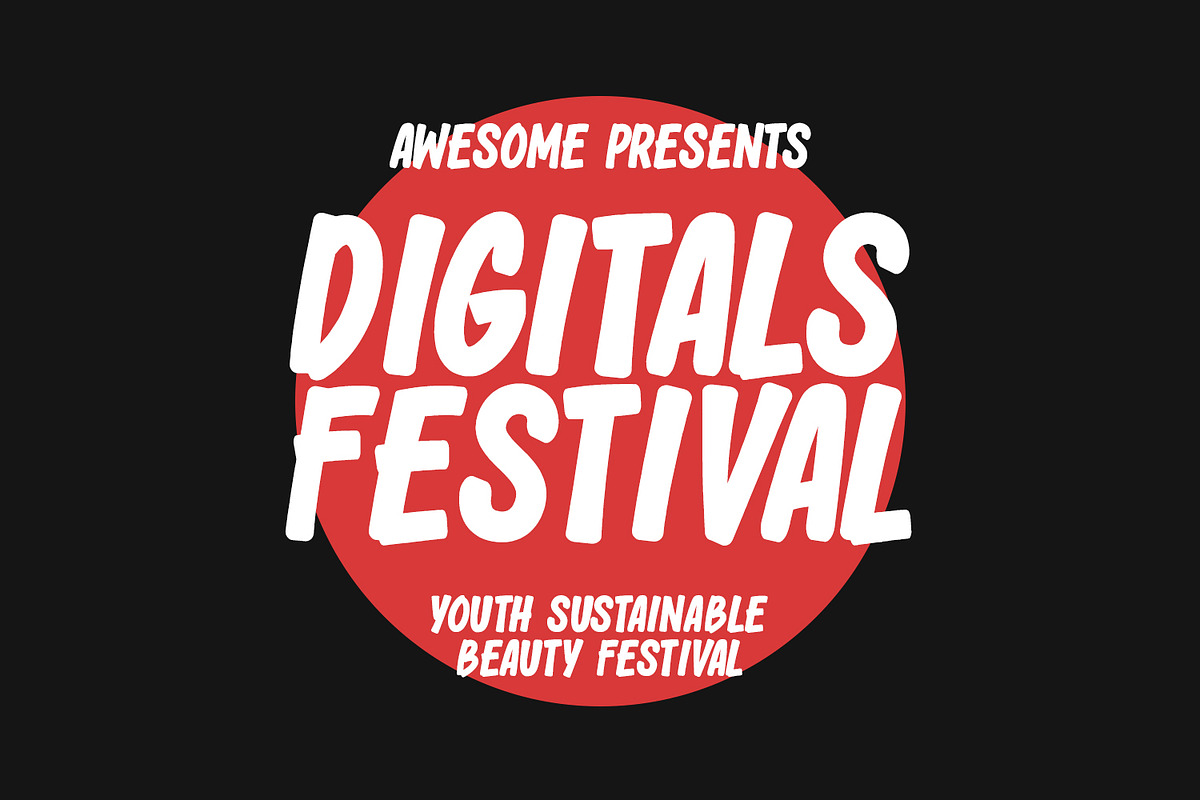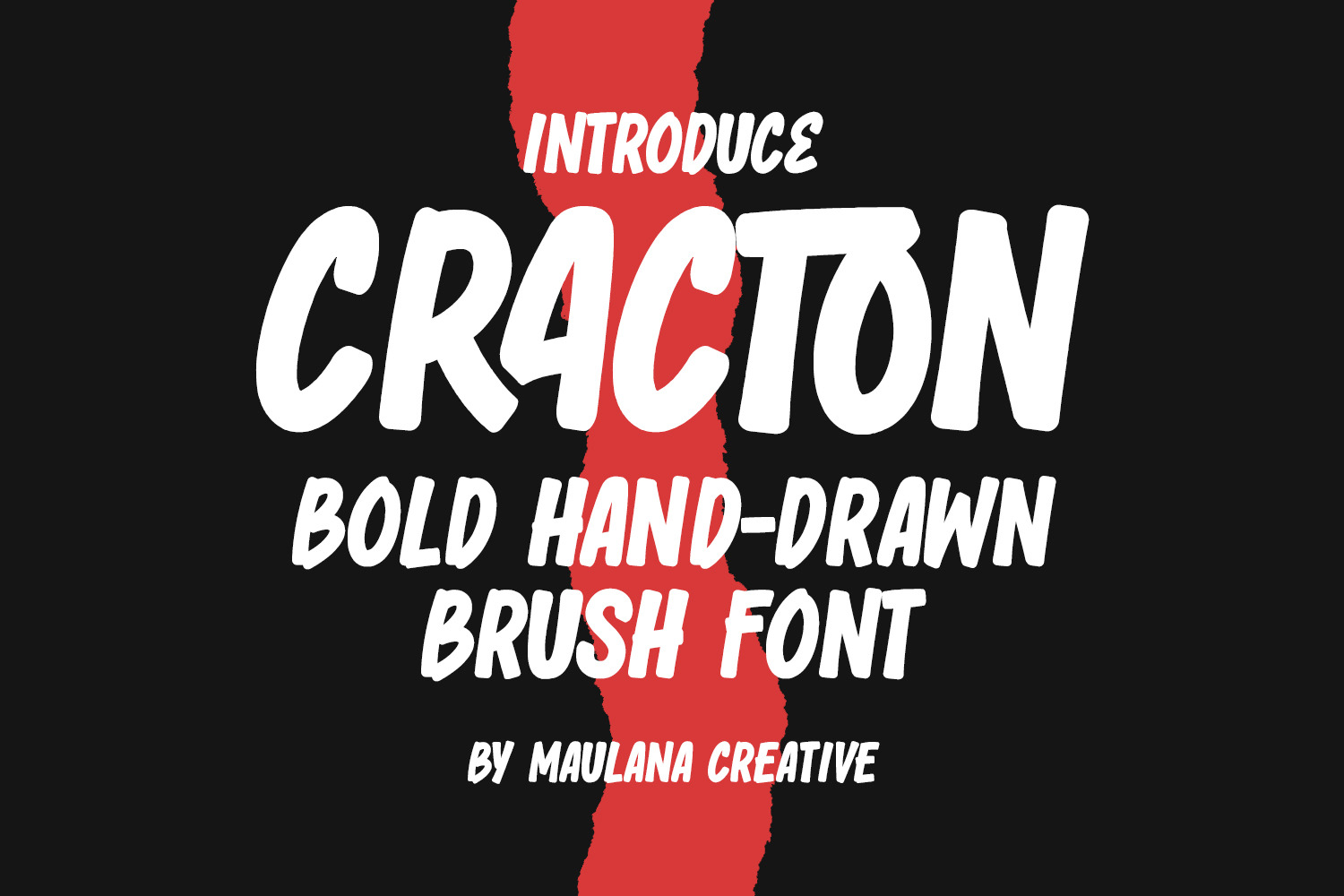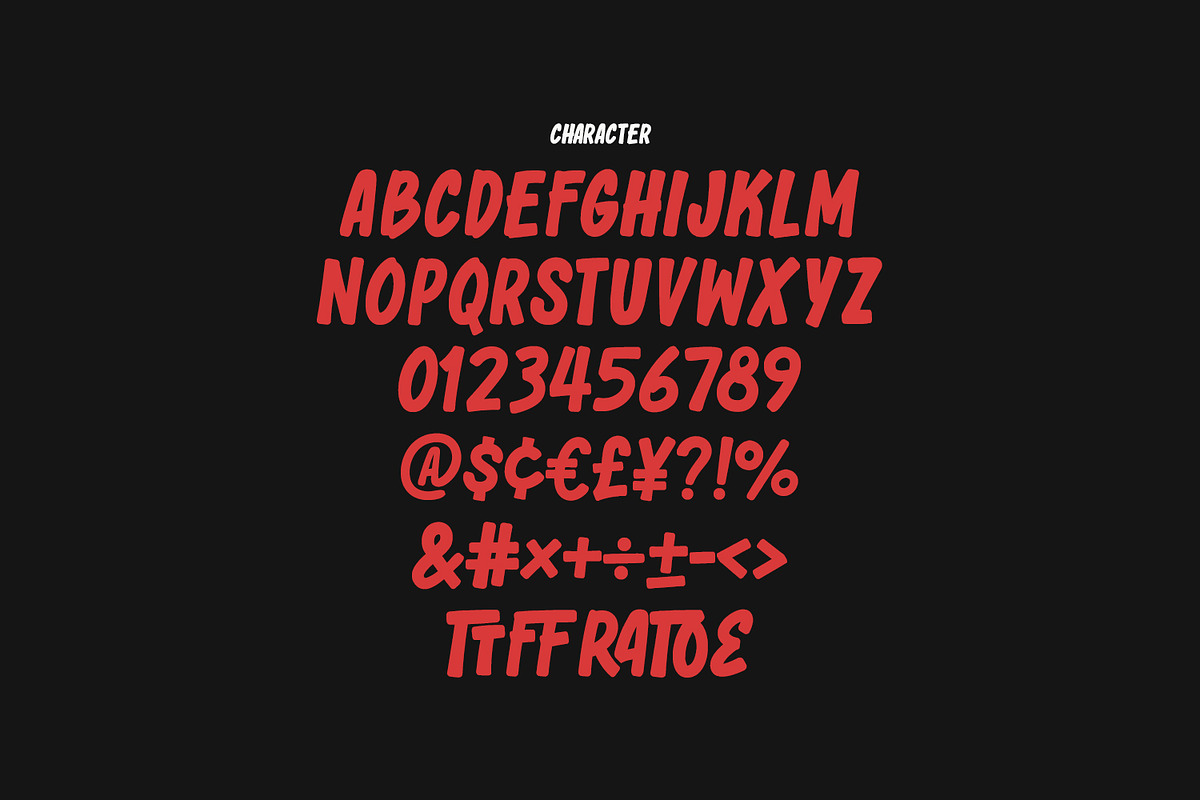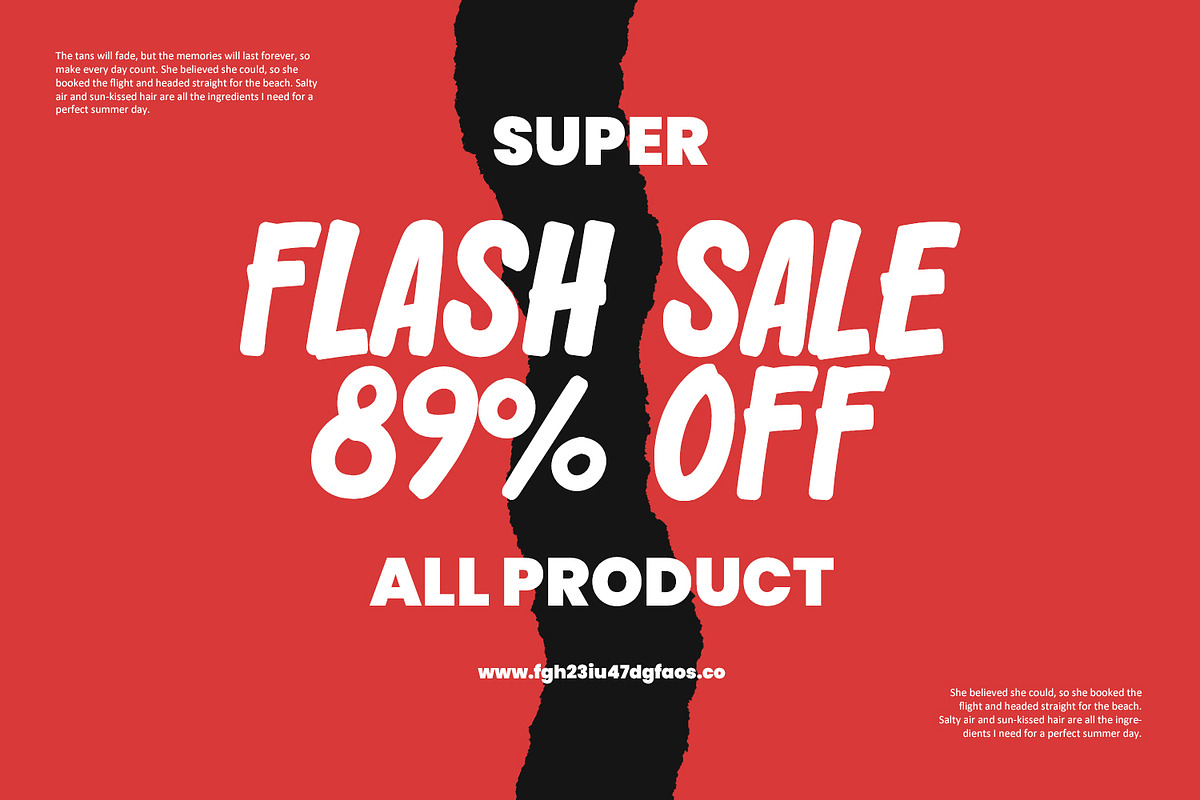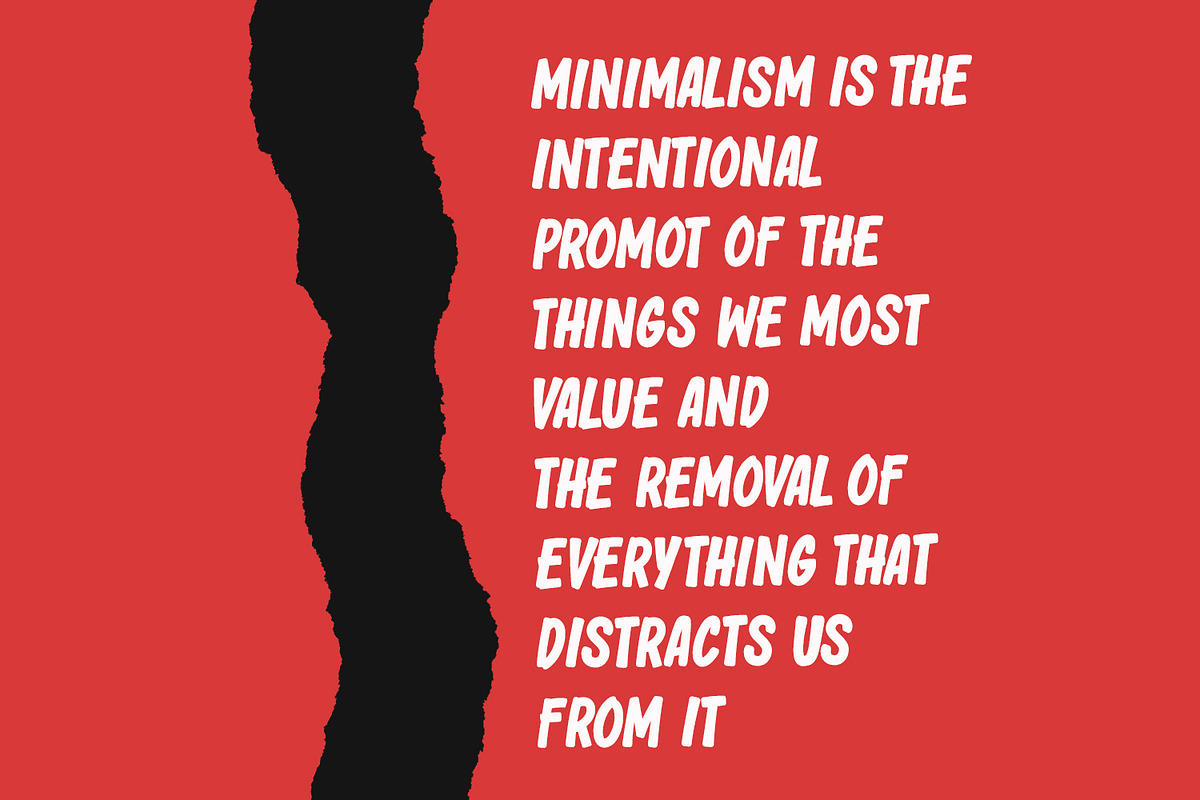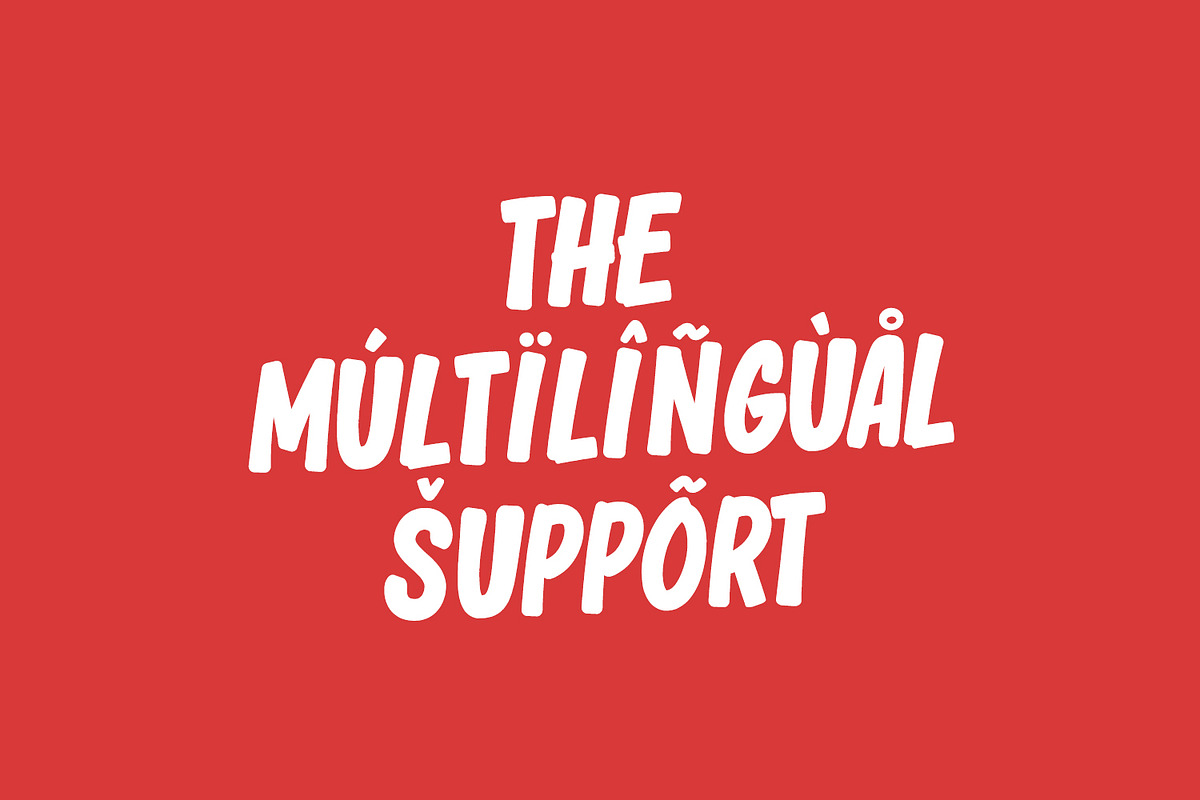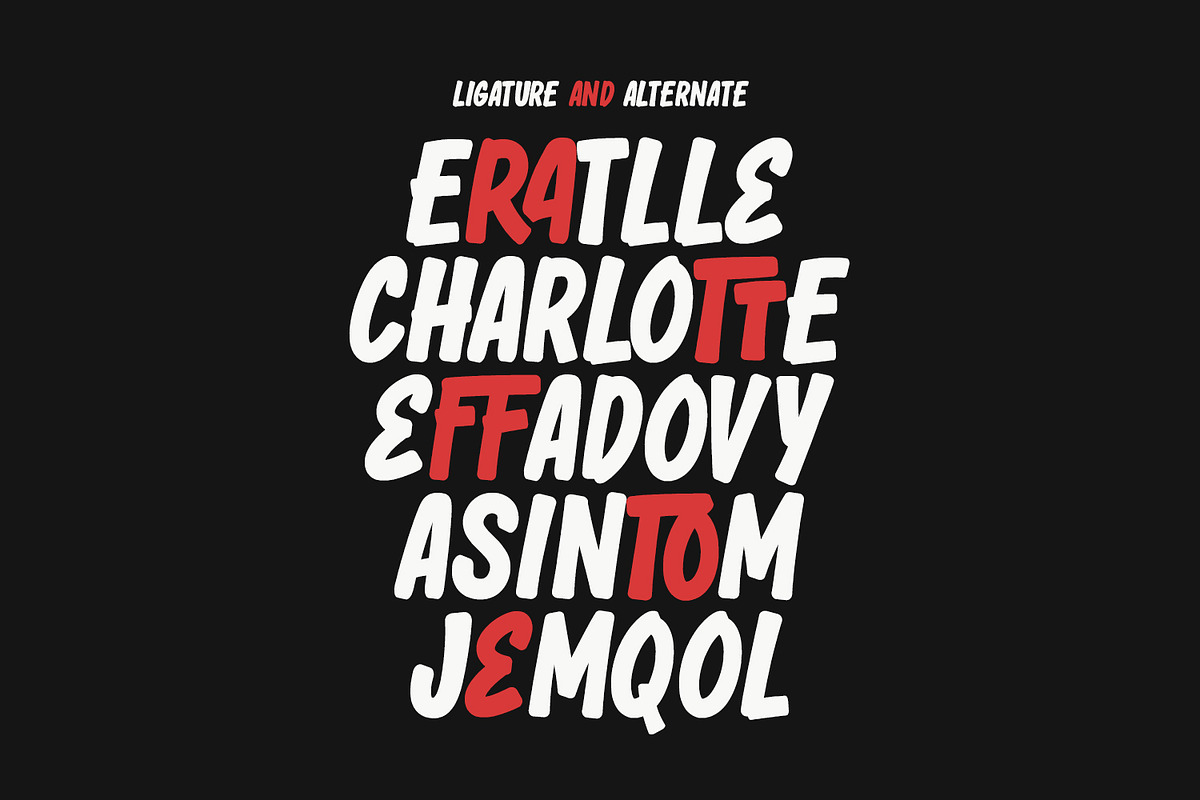
Cracton Bold Hand Drawn Brush Font
Unleash the Boldness with Cracton!
Cracton is an authentic, hand-drawn brush font designed to give your projects an energetic, raw, and impactful feel. With its chunky, expressive strokes and slightly imperfect lines, it captures the spontaneity of real brush lettering, making it perfect for designs that demand attention and a vibrant, rebellious attitude.
Ideal for:
High Impact Marketing: Posters, flyers, banners, and sale promotions.
Merchandise & Apparel: T-shirts, hoodies, and brand logos.
Food & Beverage Branding: Logos and packaging for quirky cafes, food trucks, or craft.
Music & Events: Album covers, festival branding, and concert posters.
Quotes & Social Media Graphics: Adding a bold, awesome touch to inspirational quotes and viral content.
All Caps Typeface: Strong and commanding in every letter.
Hand-Drawn Brush Aesthetic: Gives a genuine, handcrafted look.
Ligatures & Alternates: Includes special characters to ensure a smooth, professional, and varied hand-lettered flow.
Multilingual Support: Extensive support for various languages to help you reach a global audience.